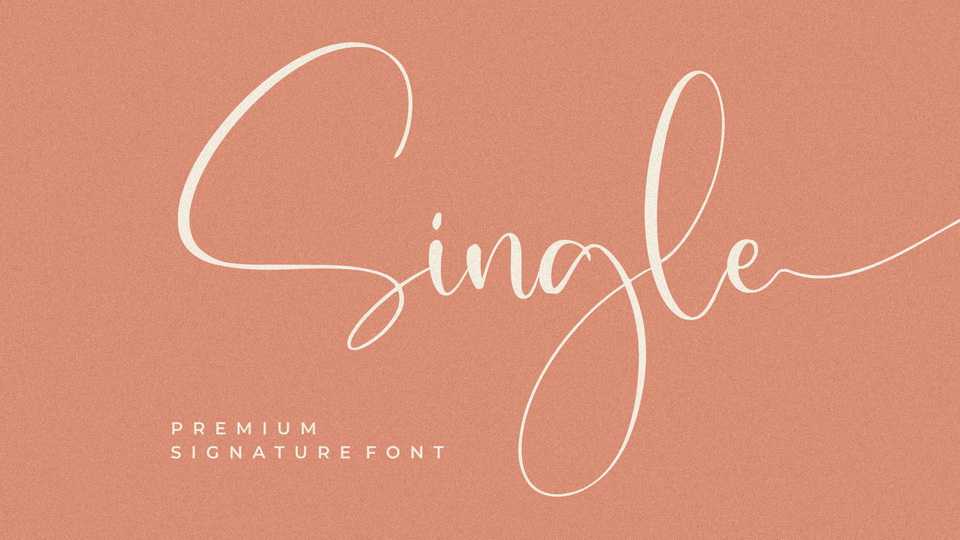
Download Single font, a premium modern signature typeface with a dancing flow. Single font is suitable for logos, branding projects, quotes, invitation and greeting cards, photography watermark and the luxury projects that need a signature taste.
Designer: Integritype Studio